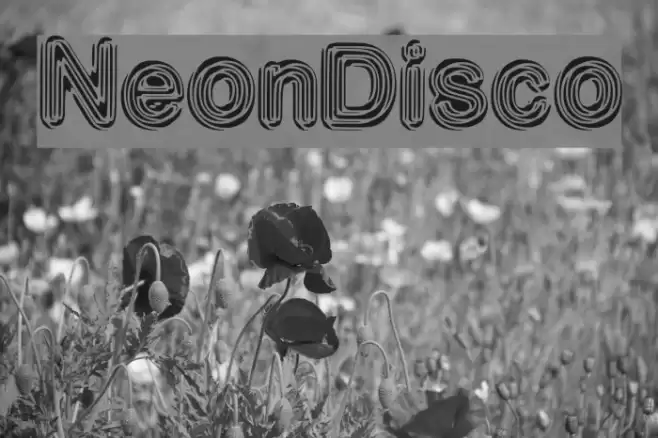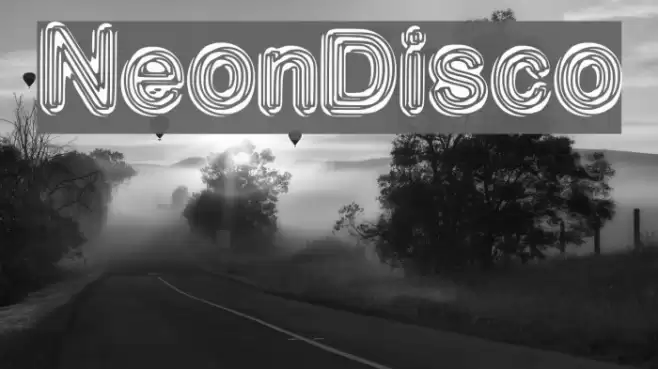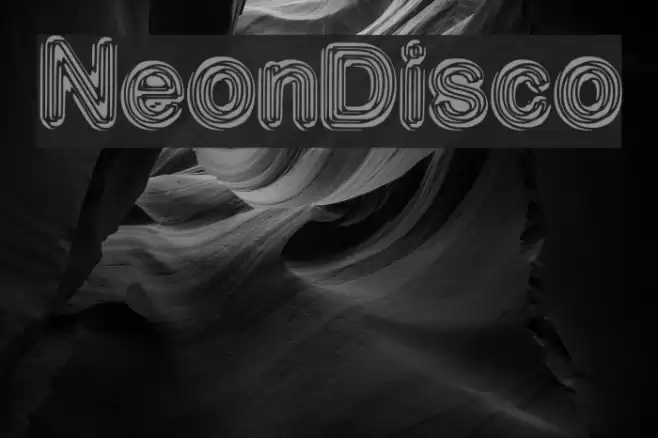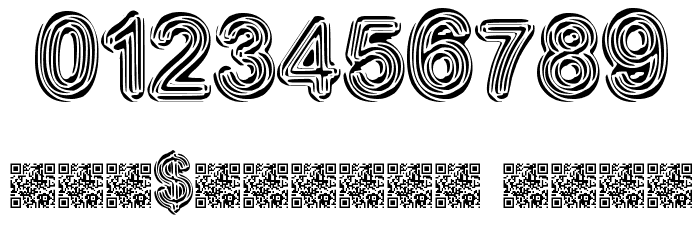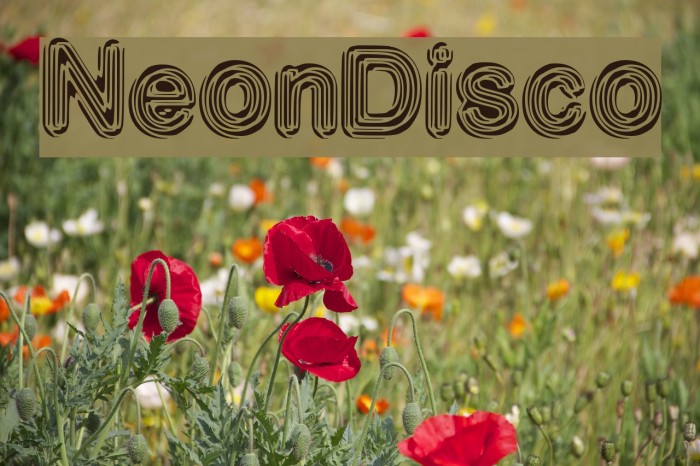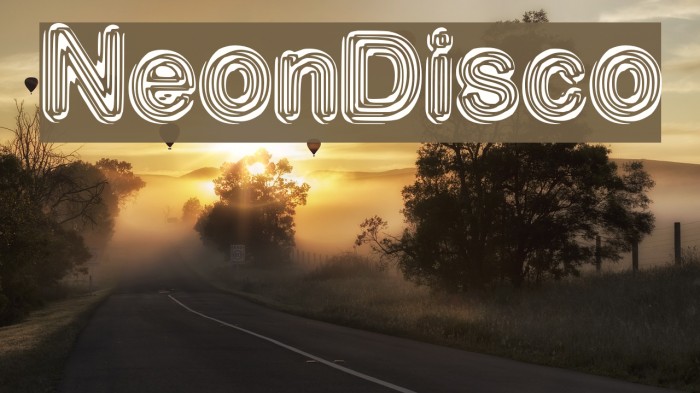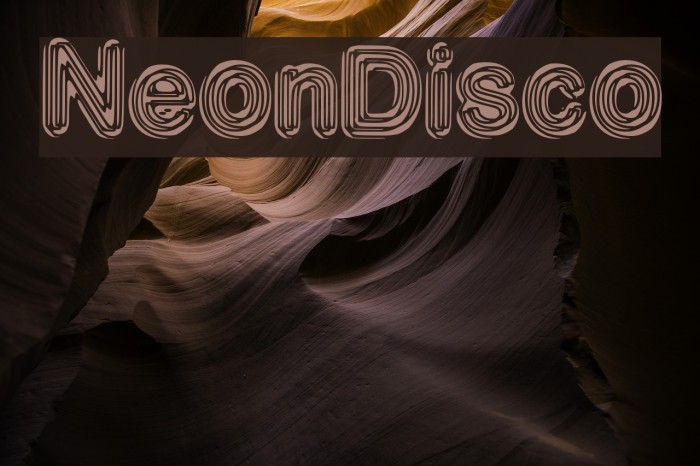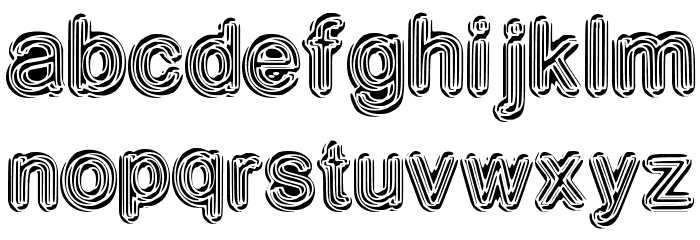
NeonDisco Font
NeonDisco Description
This font features a bold, eye-catching design with a distinct outline style that gives it a neon-like appearance. Each character is composed of multiple concentric lines, creating a layered effect that adds depth and dimension. The uppercase and lowercase letters maintain a consistent style, with rounded edges and a playful, modern aesthetic. The numerals and special characters are equally stylized, ensuring a cohesive look across all elements. This font is perfect for projects that require a vibrant and dynamic visual impact.
A bold, neon-style font with layered outlines and a modern aesthetic from Fancy fonts.
- Proposed Projects: Ideal for music festival posters, nightclub signage, retro-themed designs, and digital artwork.